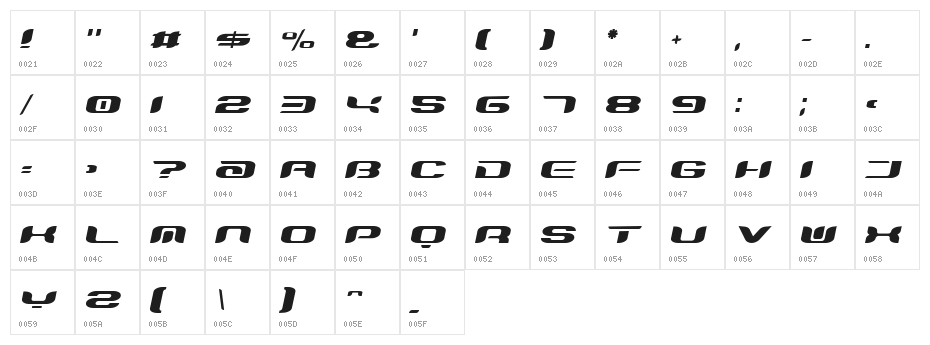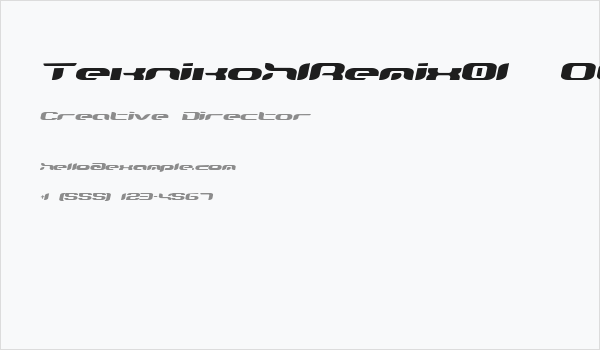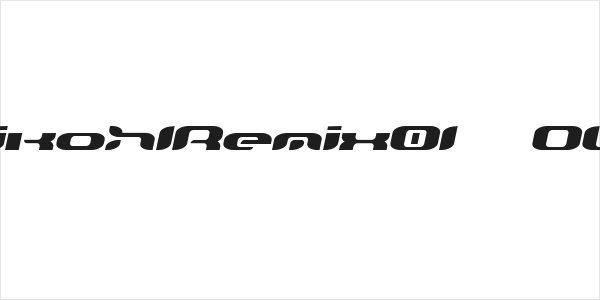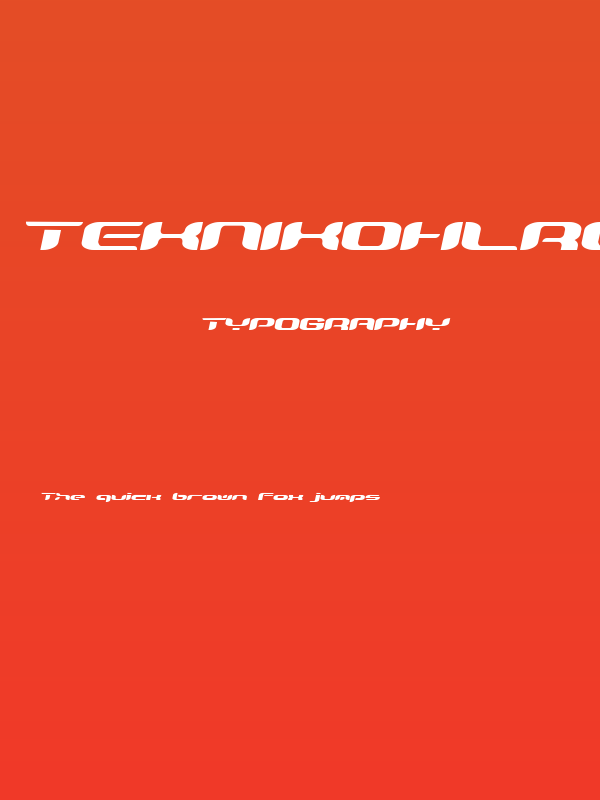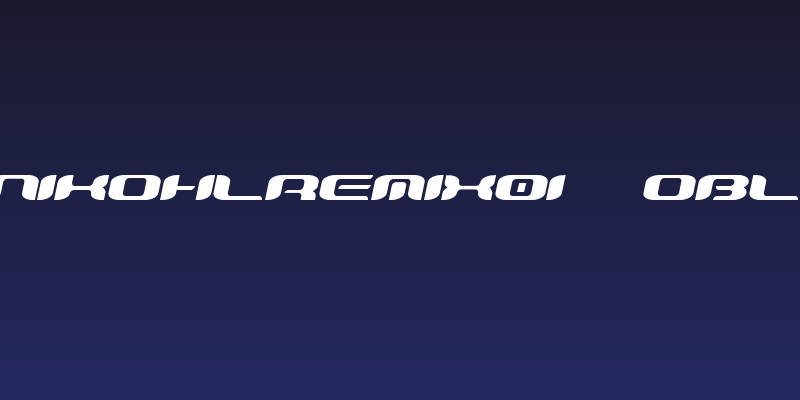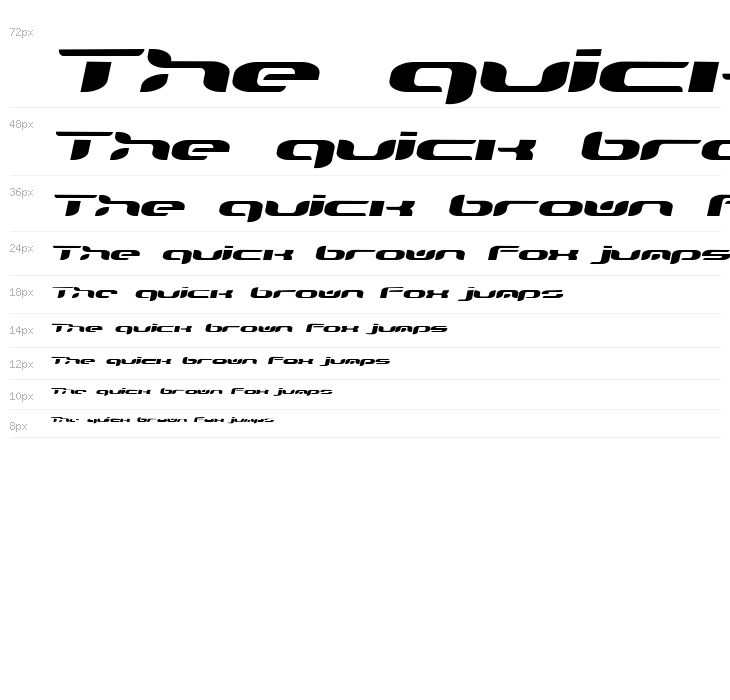
TeknikohlRemix01 Oblique Font
TeknikohlRemix01 Oblique Description
This font features a futuristic and dynamic style with a distinct oblique slant, giving it a sense of motion and speed. The characters are bold and have a unique geometric design, incorporating sharp angles and smooth curves. The uppercase and lowercase letters maintain a consistent style, with some characters having extended strokes that add to the font's modern appeal. The numerals and special characters follow the same design principles, ensuring uniformity across all glyphs. This font's bold presence makes it suitable for attention-grabbing designs.
| Proposed Projects | Ideal for sci-fi themed projects, technology branding, video game titles, and modern advertising campaigns. |